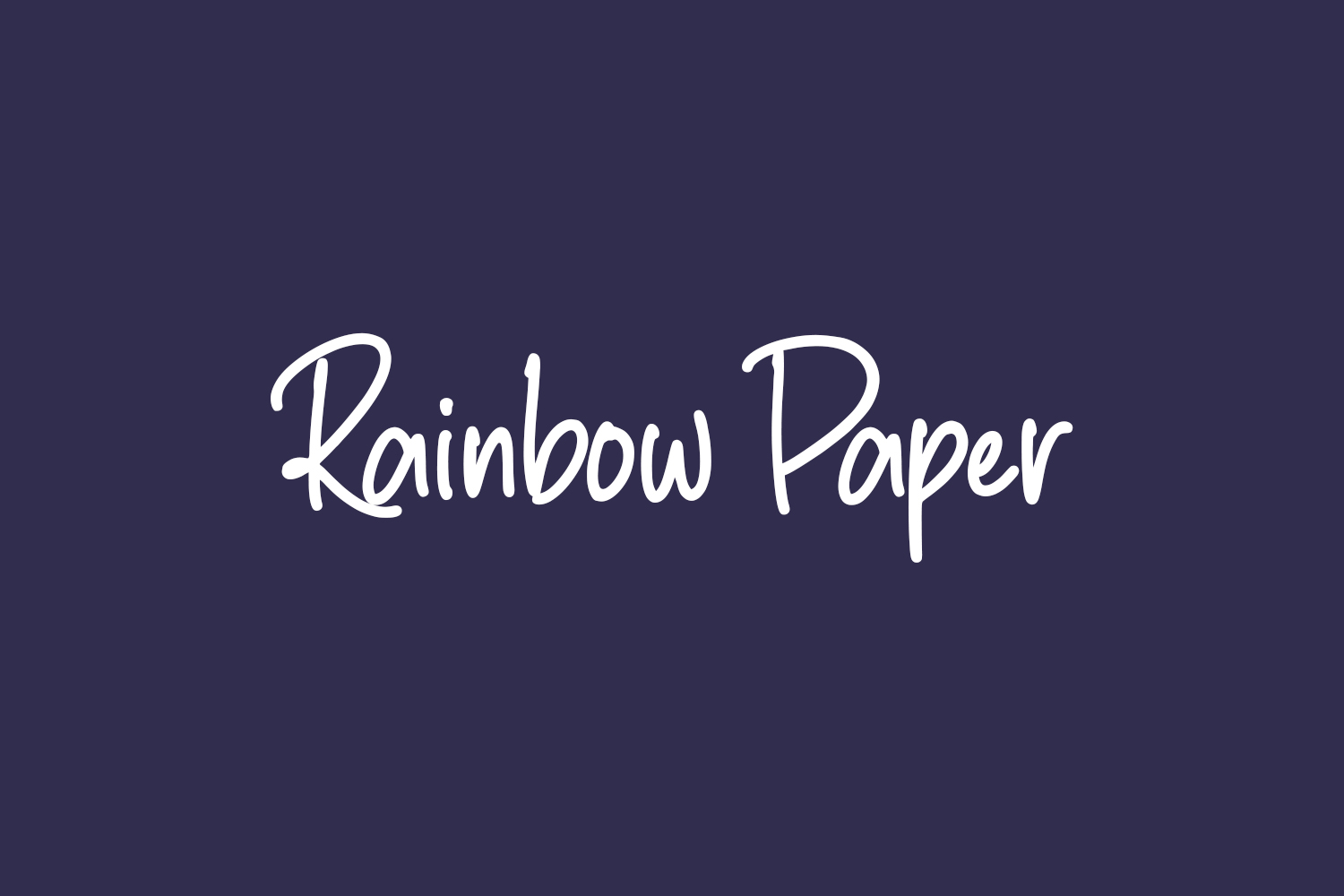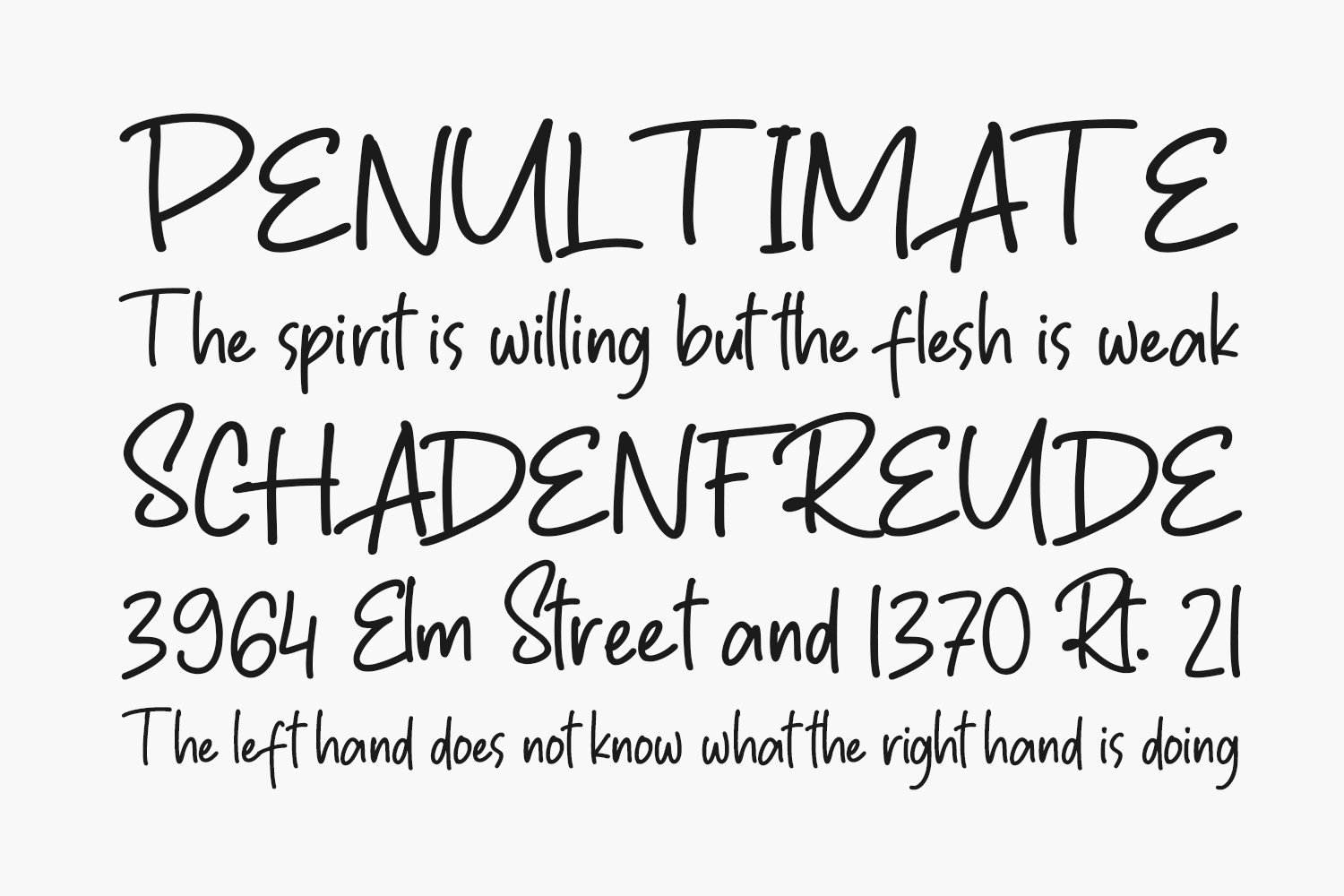
Rainbow Paper Free Font is a stylish, cute, friendly, and genuine handwritten font. Whether you use it for cartoon related designs, children’s games or just any creation that requires a lovely touch, this font will be an amazing choice. Rainbow Paper Free Font was designed by Mozatype and is free for personal use only. Please purchase the full version for commercial use.